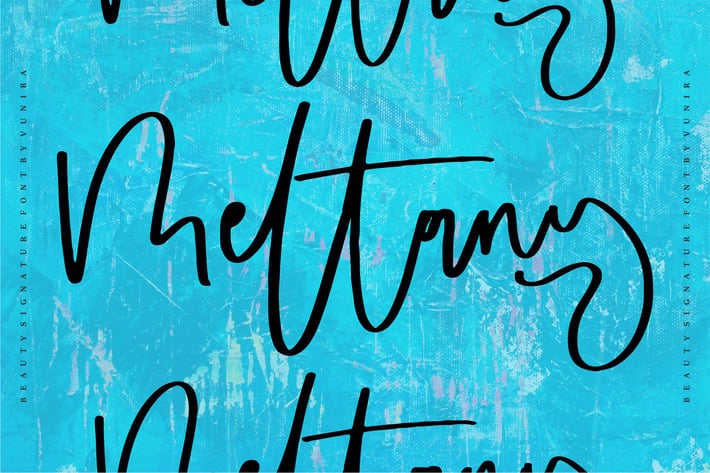
Meltany | Beauty Signature Font
Meltany | Beauty Signature Font with a calligraphy style, So beautiful on invitation like greeting cards, branding materials, business cards, quotes, posters, and more!